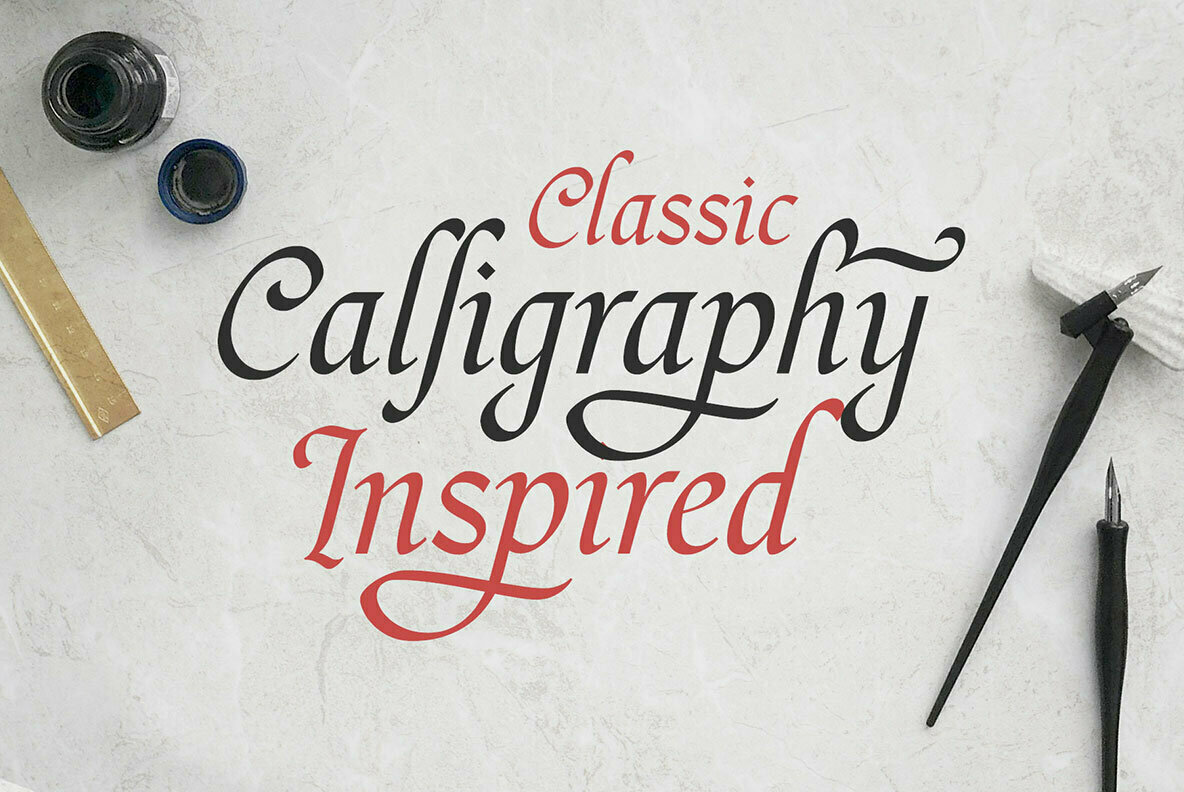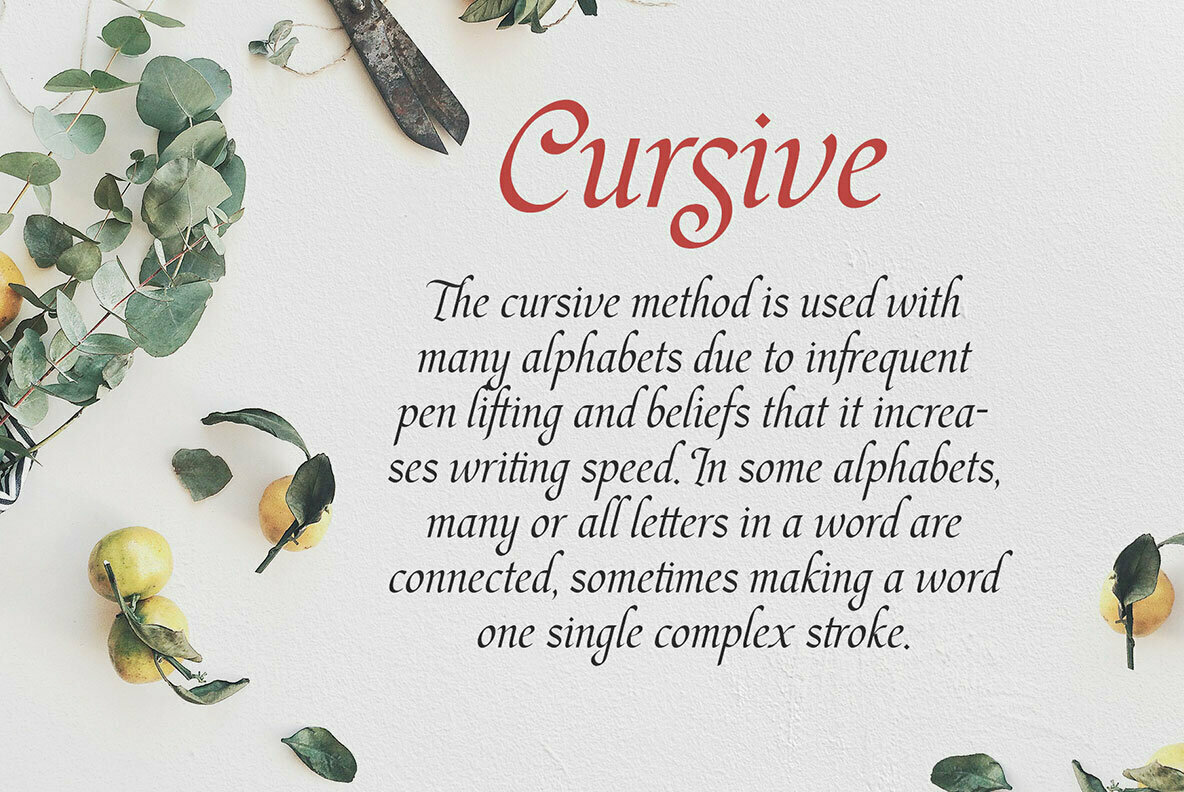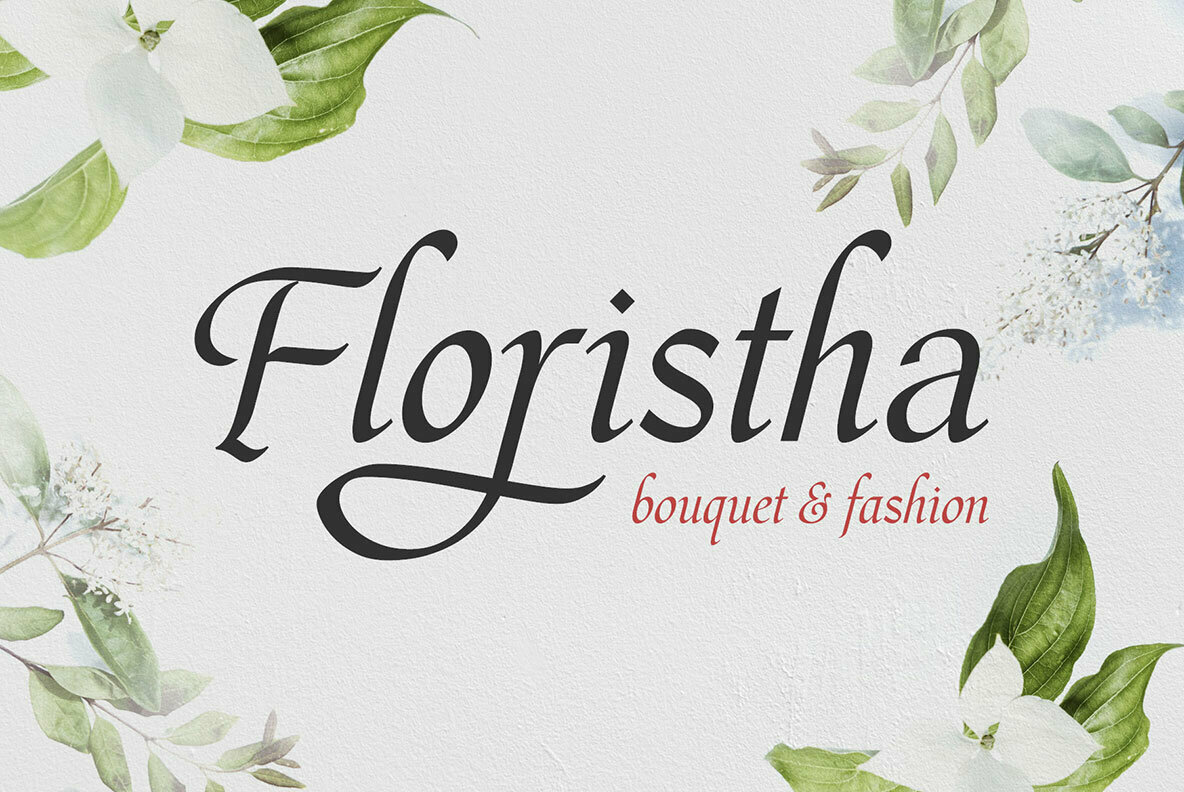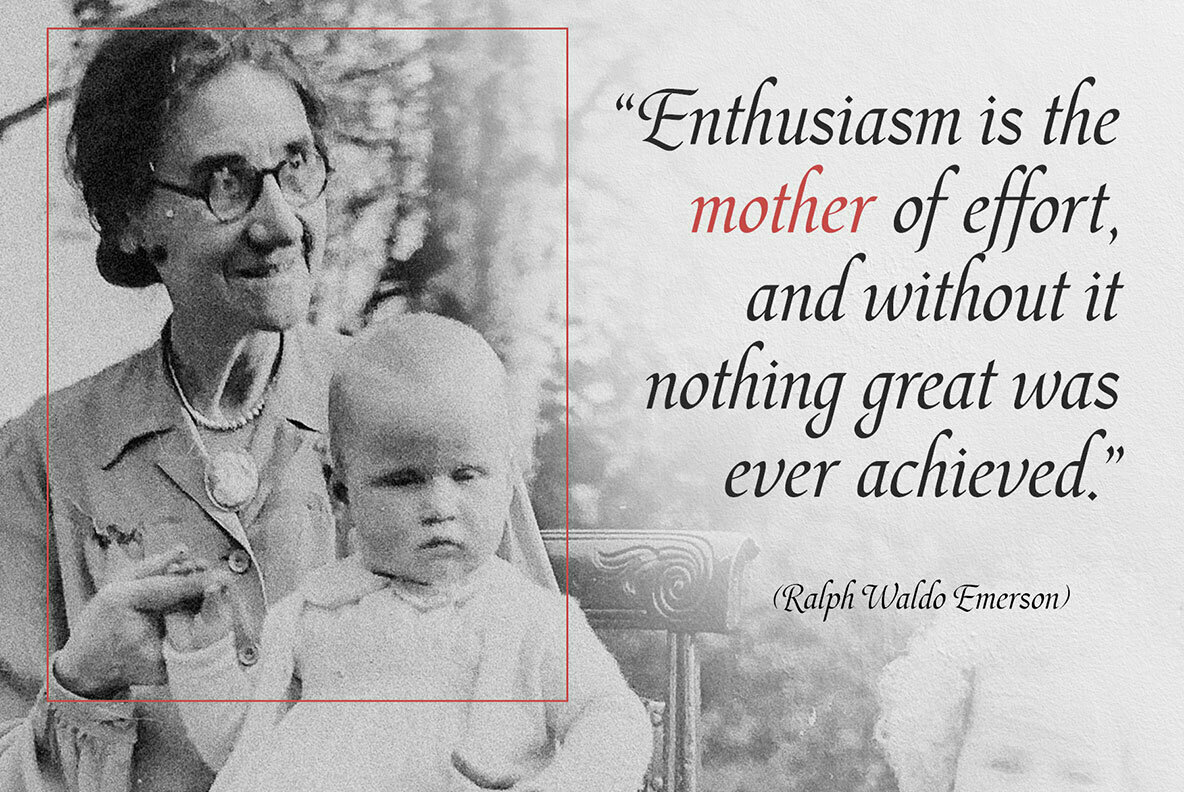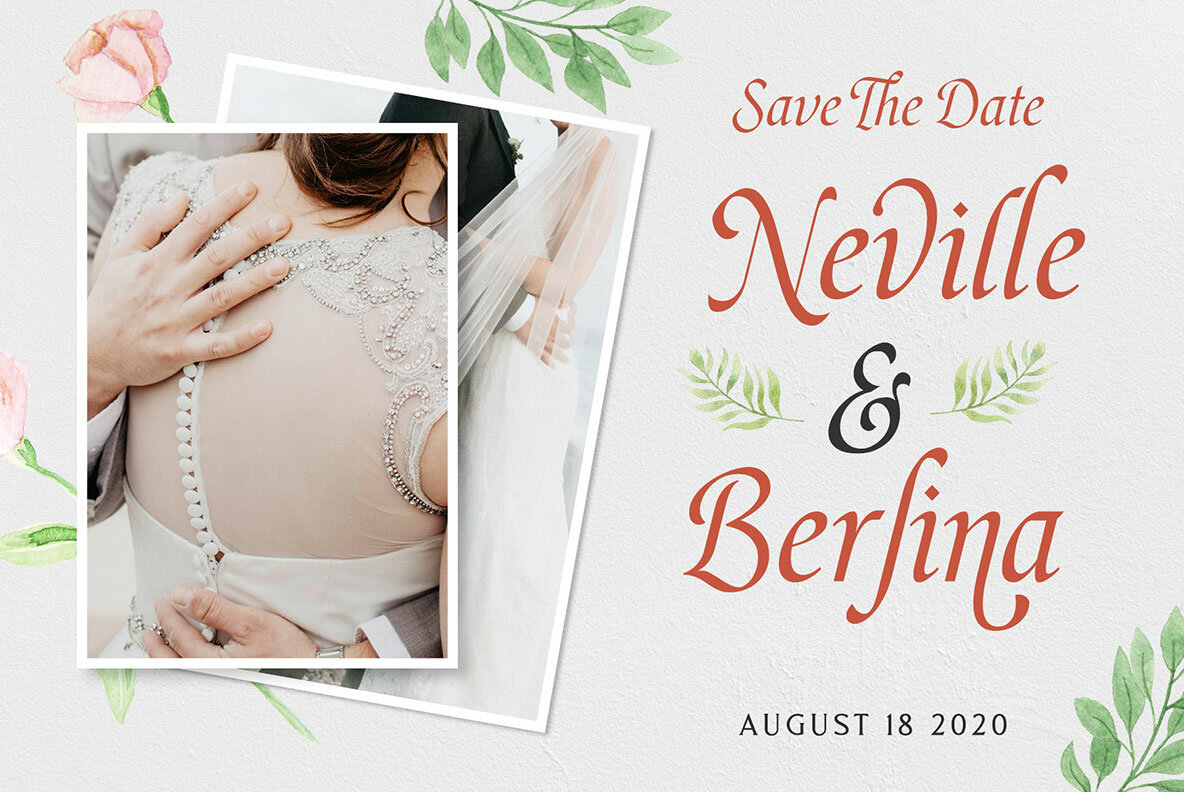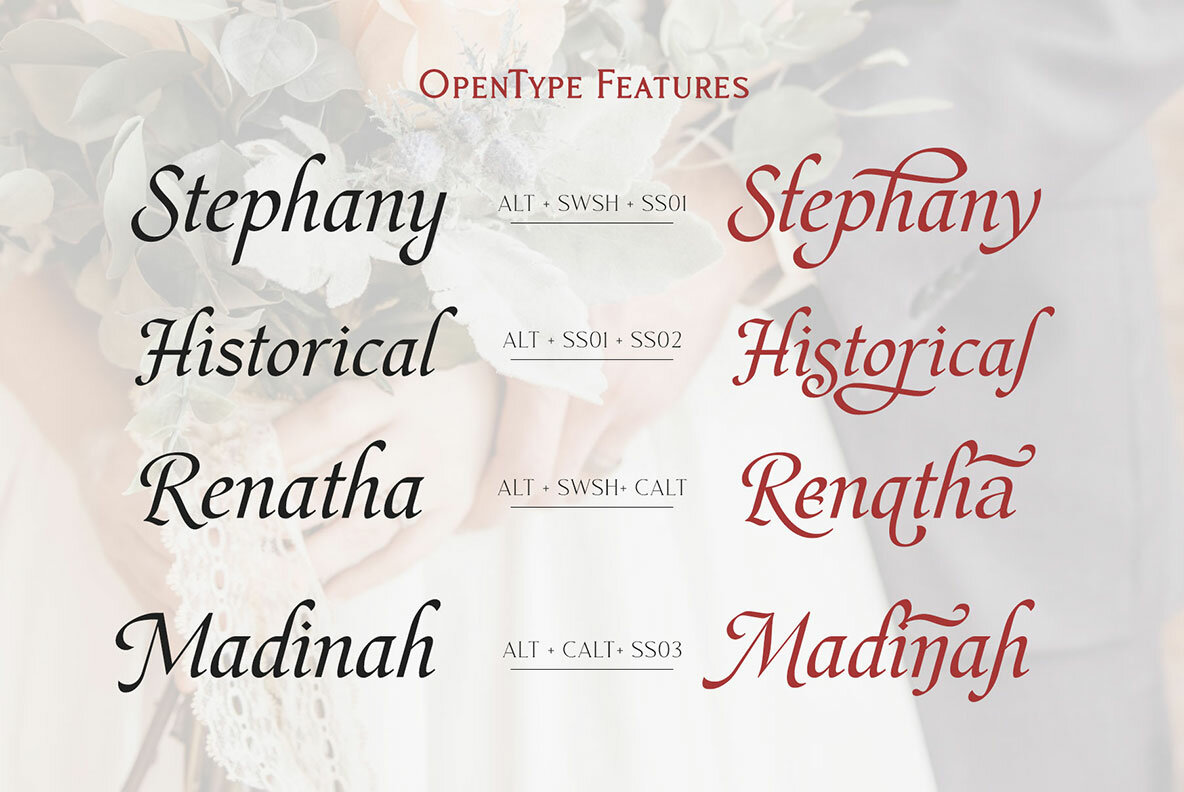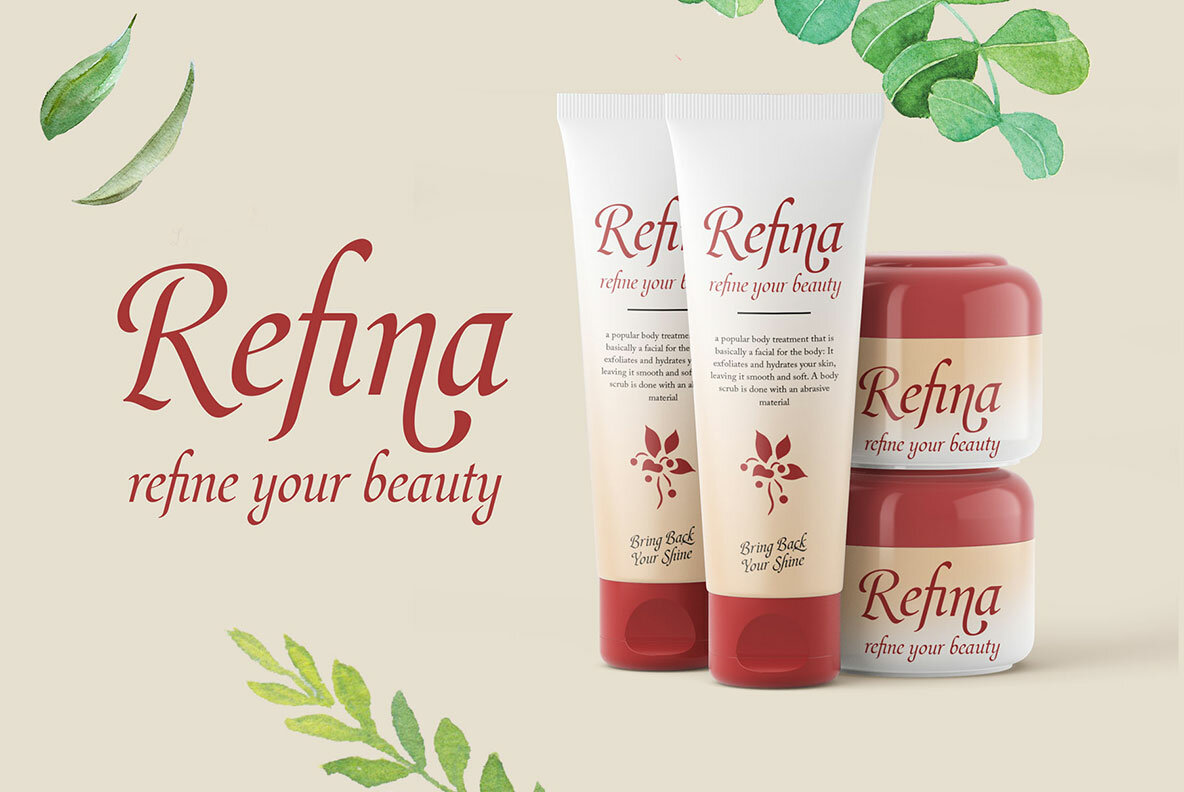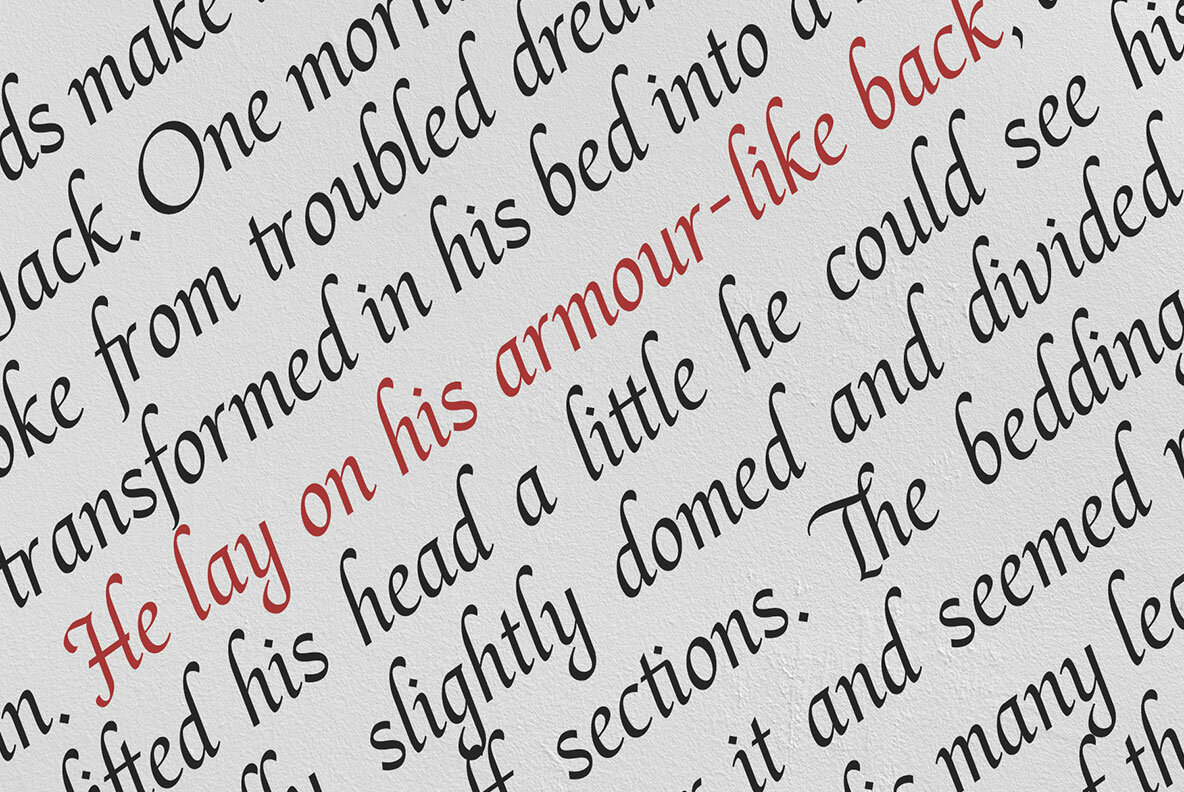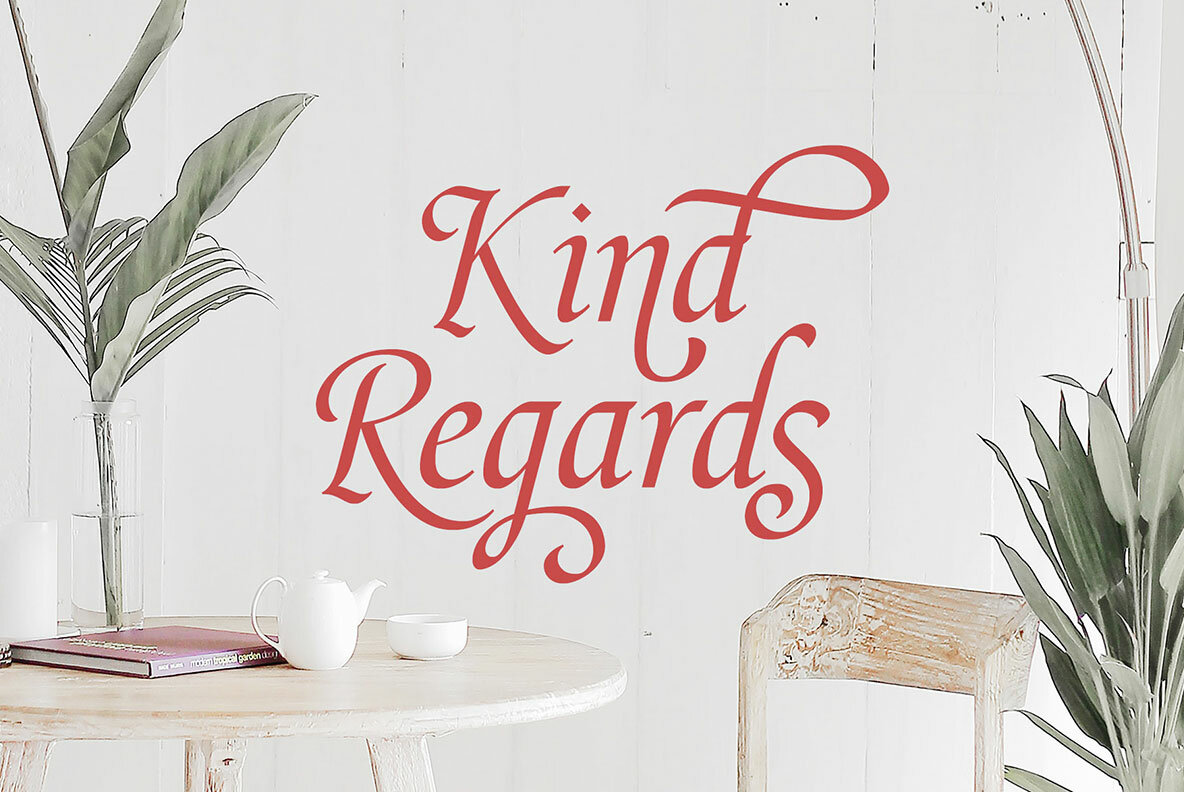
Hargalia Font
Hargalia
Hargalia is a stunning cursive typeface that draws inspiration from the elegant calligraphy of the Carolingian Renaissance. Originating in the 8th century, this era marked the perfection of cursive letterforms with curvaceous strokes crafted using a flat brush. Ahmad Ramzi Fahruddin has meticulously designed Hargalia to capture this historic style, offering a modern digital twist with delicate penmanship and thoughtfully included swashes. With its natural flowing strokes and historical allure, Hargalia is ideal for headlines and brief text. Its calligraphic charm makes it well-suited for fashion branding, magazine editorials, logotypes, packaging designs, and historical quotes. This typeface comprises 430 glyphs in total and is PUA Encoded, ensuring versatility and ease of use across various design projects.Hargalia: Classic Cursive Typeface from the Carolingian Era